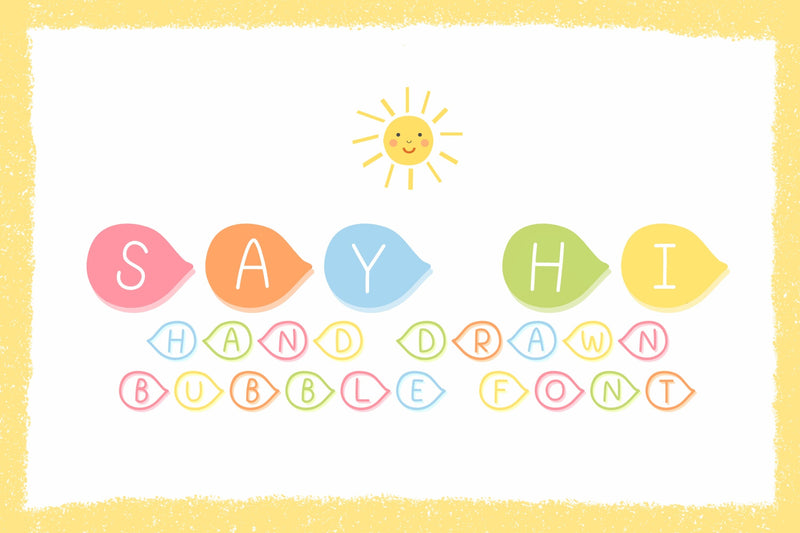
Say Hi - Bubble Font All Caps
Say Hi is a cute and friendly hand drawn bubble font. You can use this font in various projects - blog posts, logos, branding, digital planner, digital notes, invitations, greeting cards, planners, digital journal, photo albums, study notes, school notes, college notes, decorations and much more. Its authentic look and feel will add a personal and realistic feel to your designs.
The font includes uppercase in right bubble and left bubble
(English only)